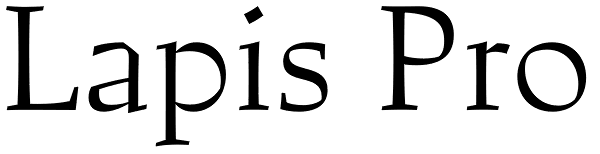
Lapis Pro
Lapis was Jim Rimmer's venture into a territory he'd earlier explored with his Lancelot and Fellowship faces. This time he stayed much longer, dug pretty deep, and had plenty of fun in there. The end result is the kind of mosaic of influences only a...